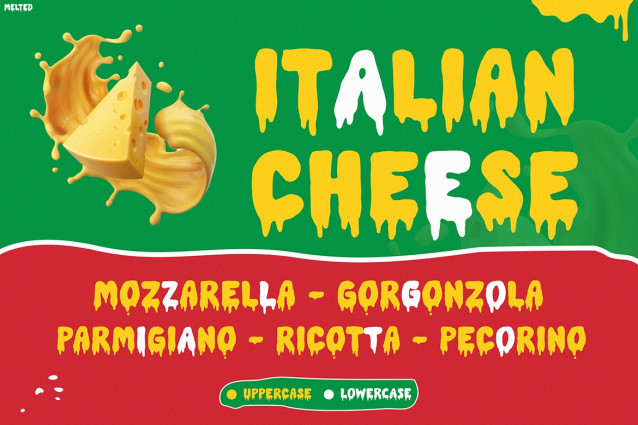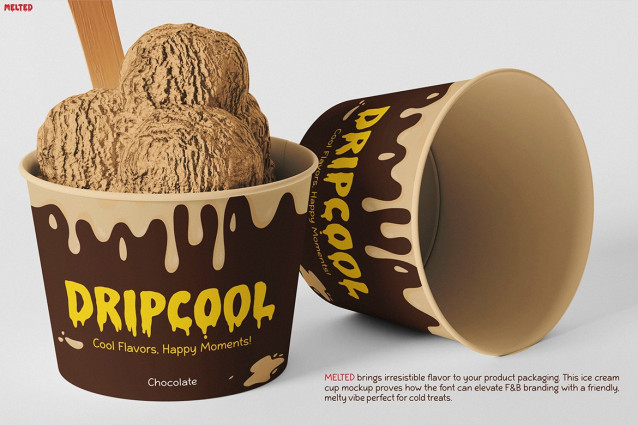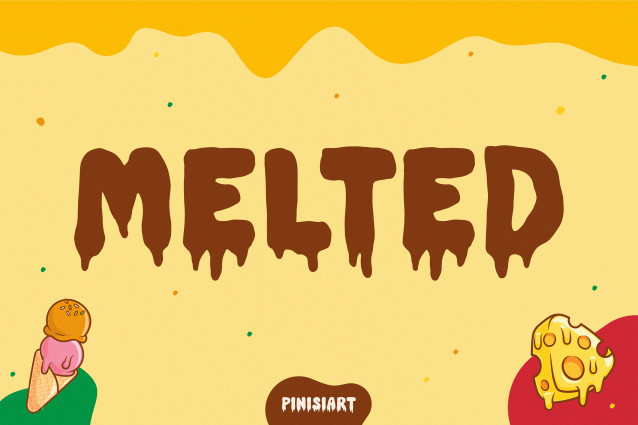
Melted Font
Melted Font is a delightfully playful and visually captivating typeface that instantly grabs attention. From the very first glance, it stands out with its dripping, gooey, and candy-like style. Inspired by the textures of melting chocolate, frosting, and cheese, this font turns any message into an eye-catching treat. Moreover, its thick, rounded letters give off a bold, tasty vibe—making every design feel deliciously alive. Not only does it evoke a strong visual impact, but it also adds a flavorful twist that makes your content more memorable. As a result, it’s perfect for designs that need to feel fun, dynamic, and family-friendly.
In terms of functionality, Kids Font MELTED excels in promotional materials, product packaging, signage, and social media graphics. Additionally, the font’s bouncy character and gooey drips give it a unique personality that’s hard to miss. This font helps bring your ideas to life with a splash of excitement.